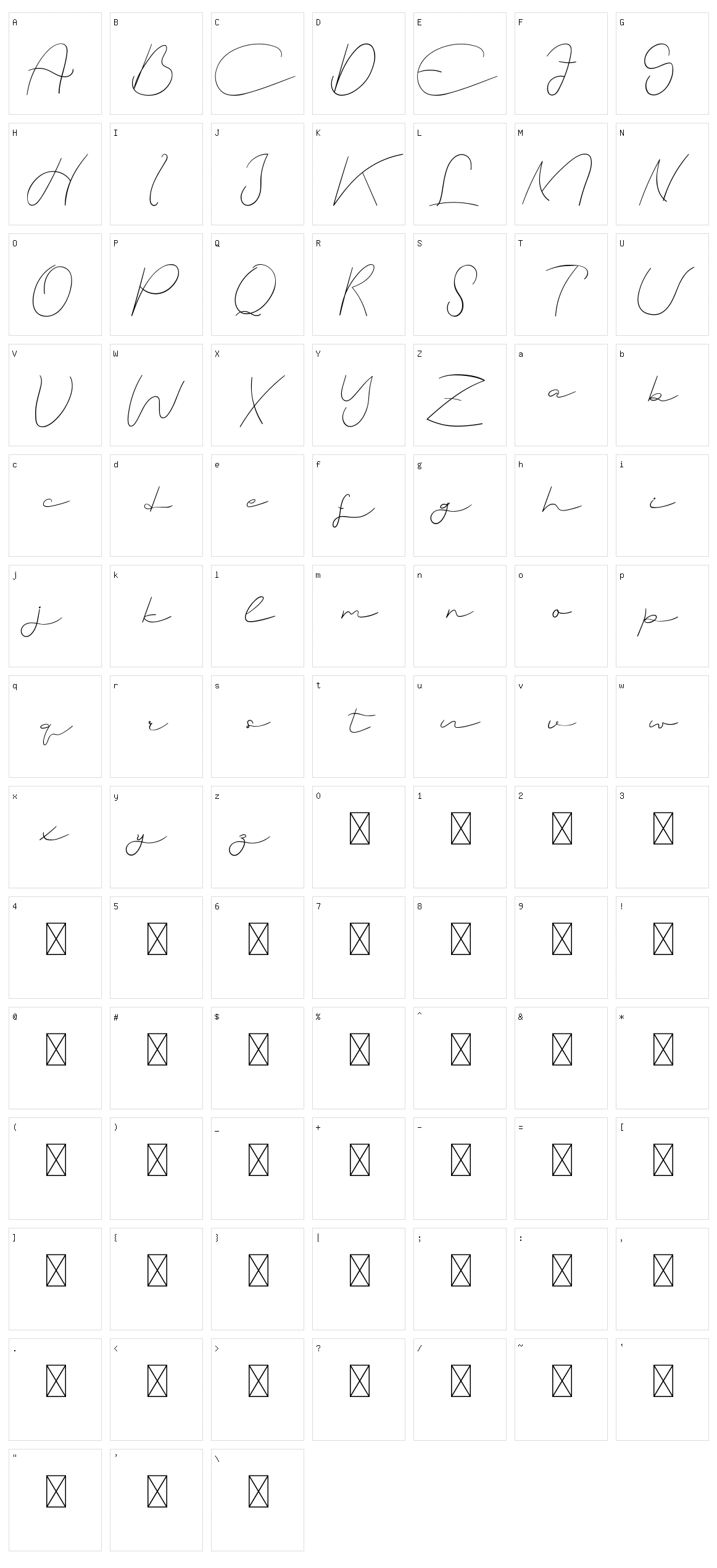
The free font Good Smells is carefully designed by Edric Studio, showcasing a thoughtful balance of creativity and usability and falls under the Script font style. When you download the ZIP file, it contains only 11.89 KB of font files, making it lightweight and quick to download. Please review the license details below to understand permitted usage and distribution rights. If license information is not available, we recommend using this font for personal projects only or contacting the author directly for commercial usage permissions.